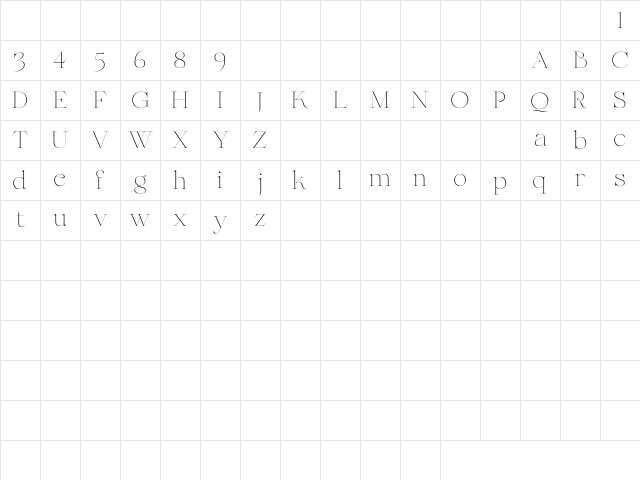
feonie Regular
Design Context for feonie
feonie is a composed and adaptable typeface that performs quietly and consistently across a wide range of design contexts.